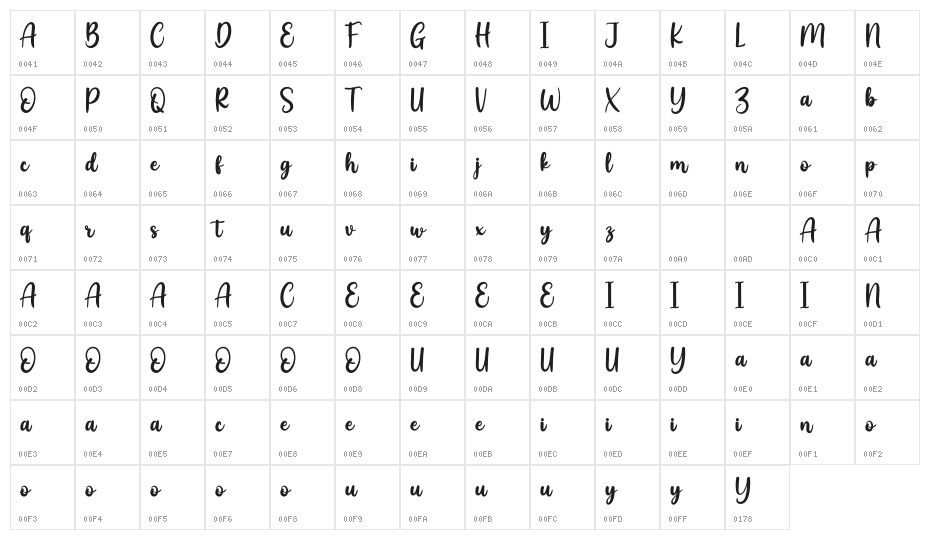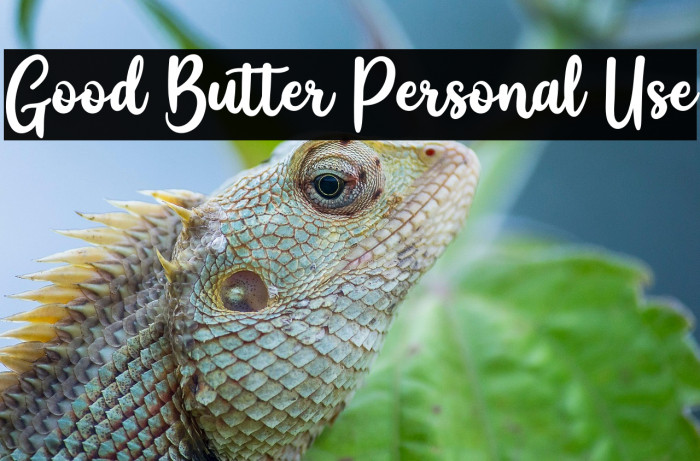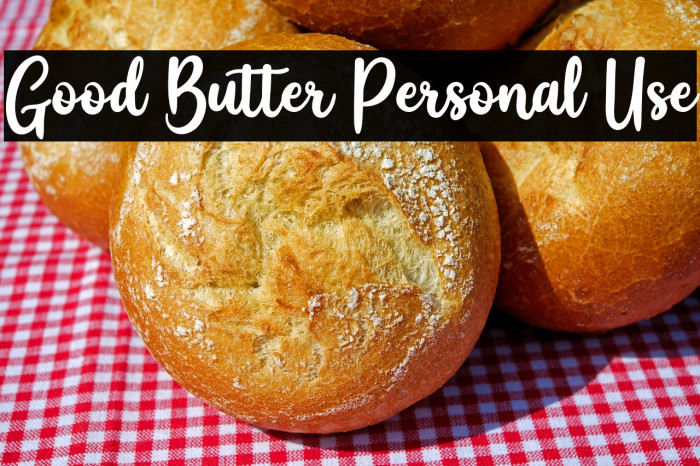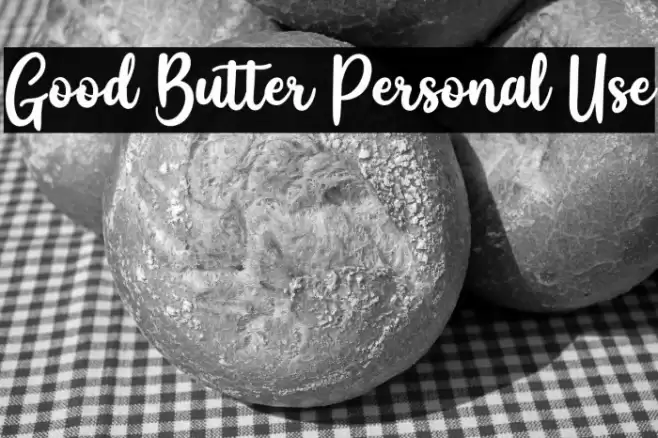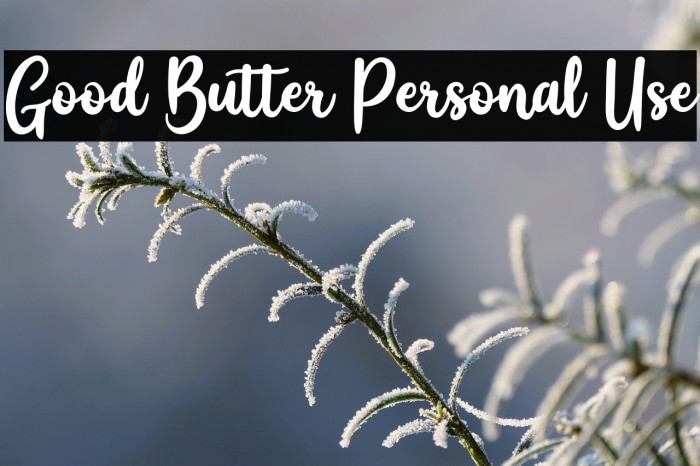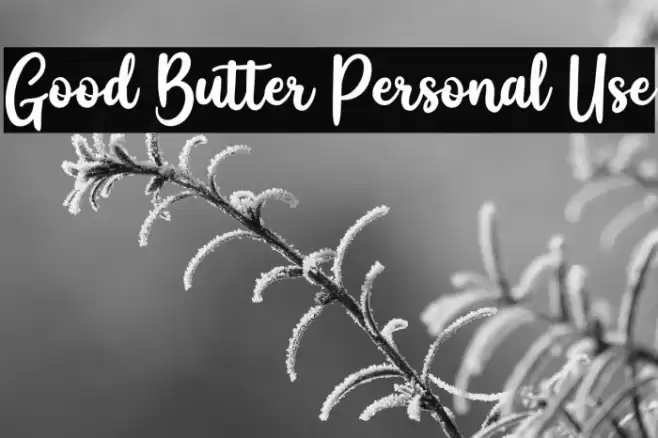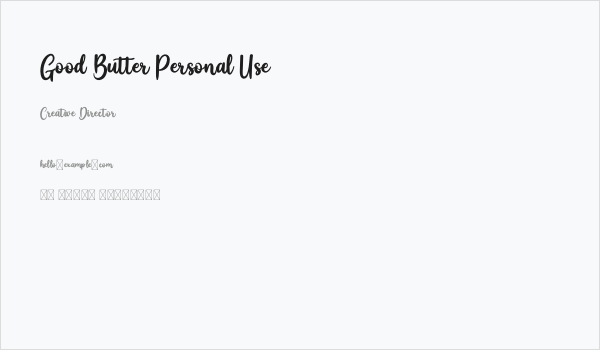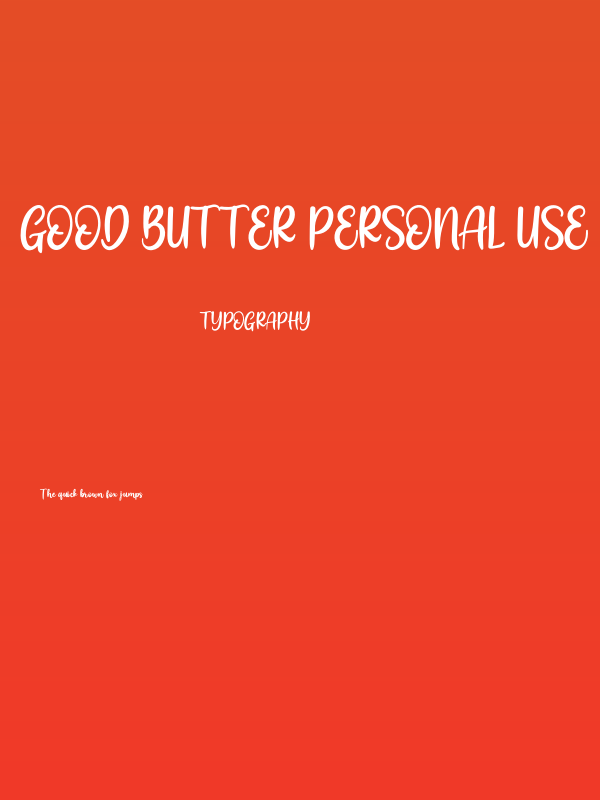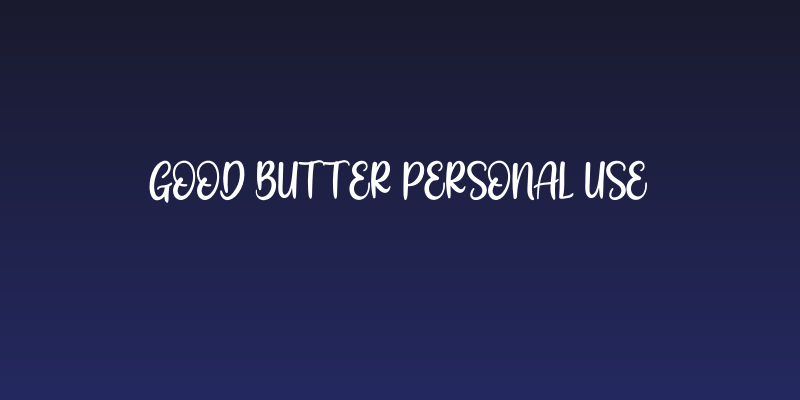
Good Butter Personal Use Font
Good Butter Personal Use Description
This font features a playful and flowing script style, characterized by its smooth, rounded strokes and a handwritten appearance. The uppercase letters are bold and slightly elongated, giving them a distinctive presence, while the lowercase letters maintain a consistent flow with gentle curves and loops. The overall design is casual yet elegant, making it suitable for a variety of creative applications. The font's unique charm lies in its ability to convey a sense of warmth and friendliness, making it ideal for personal and informal projects.
| Proposed Projects | Ideal for greeting cards, invitations, personal branding, and creative projects that require a friendly and approachable touch. |